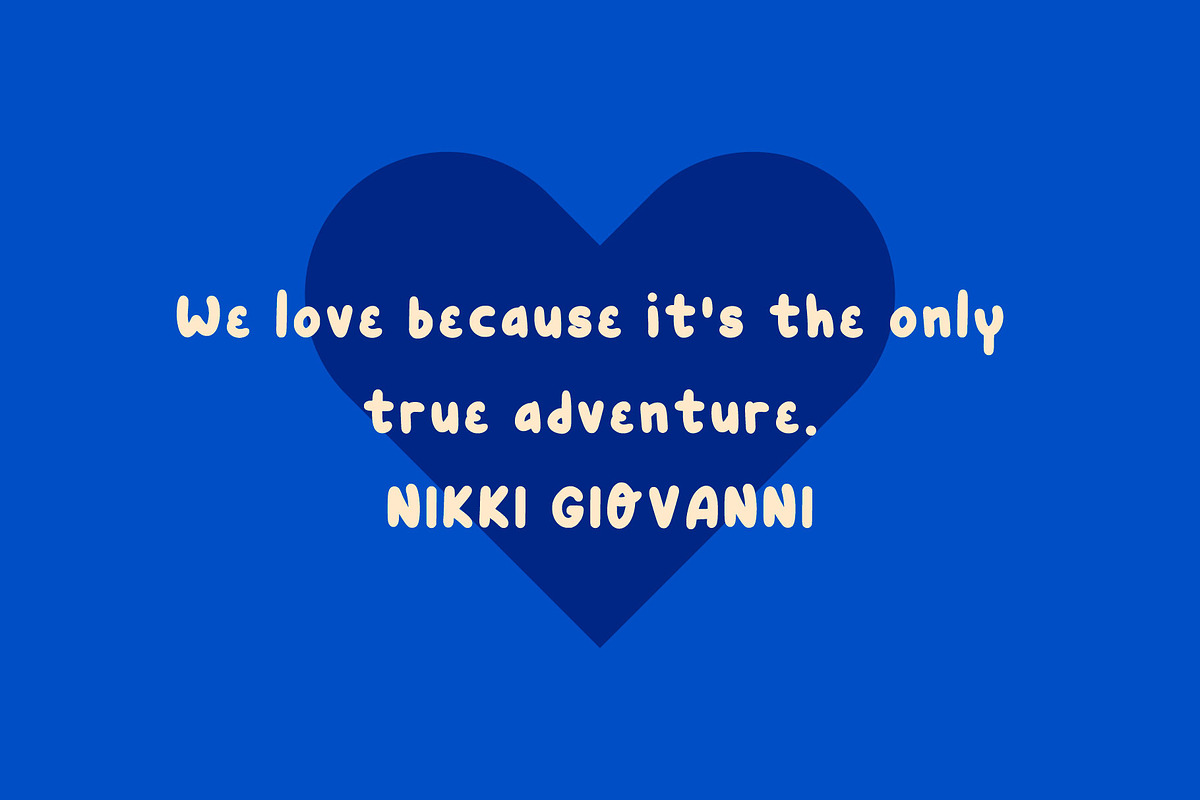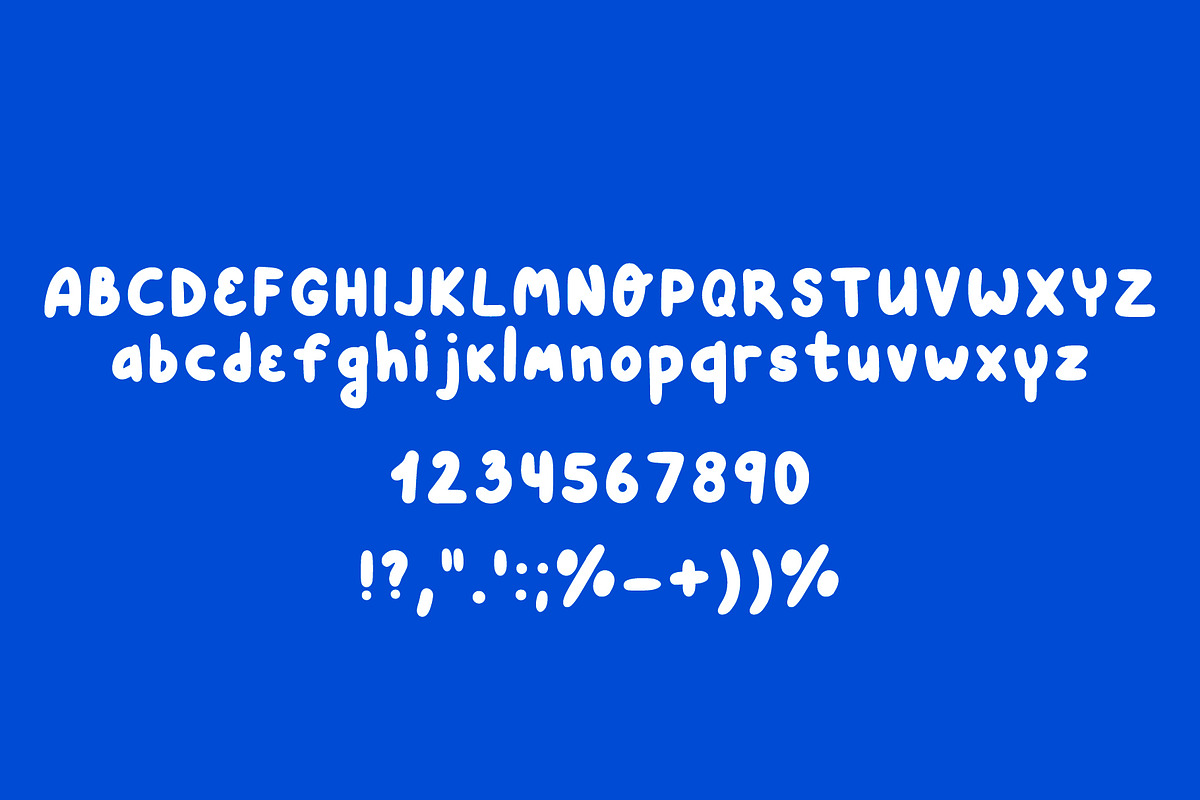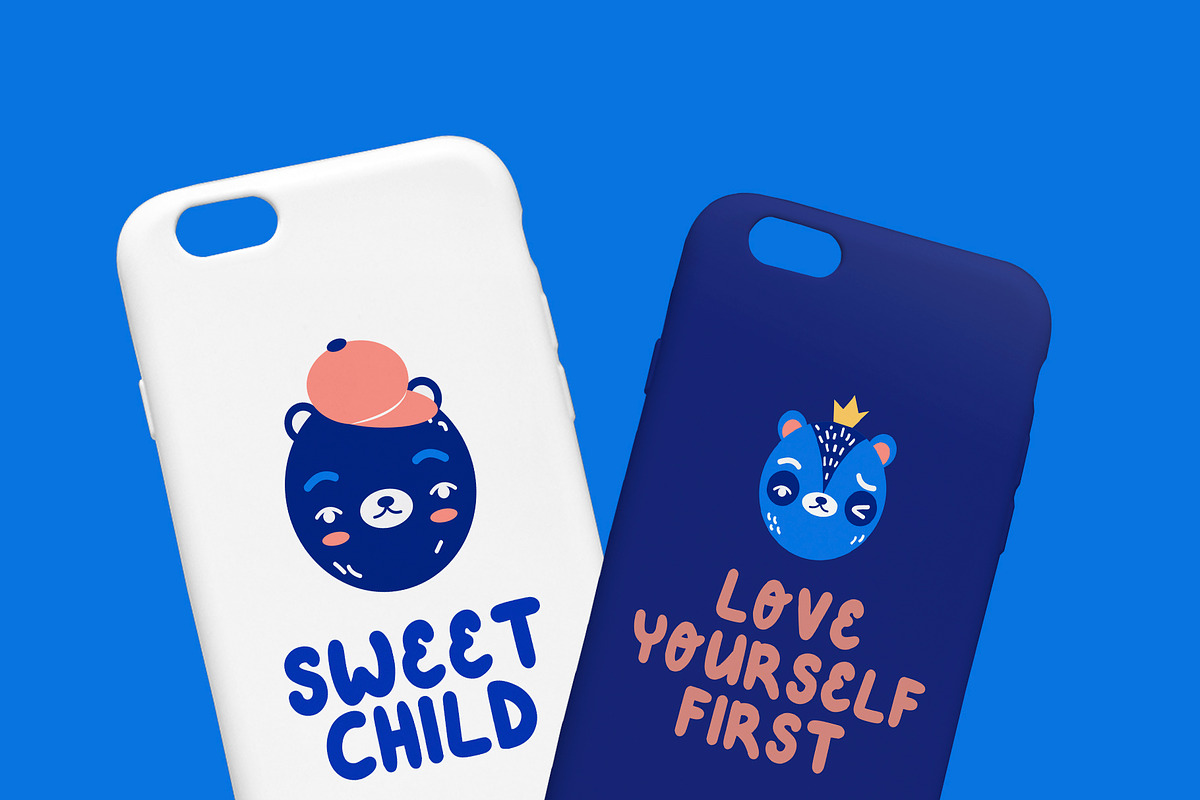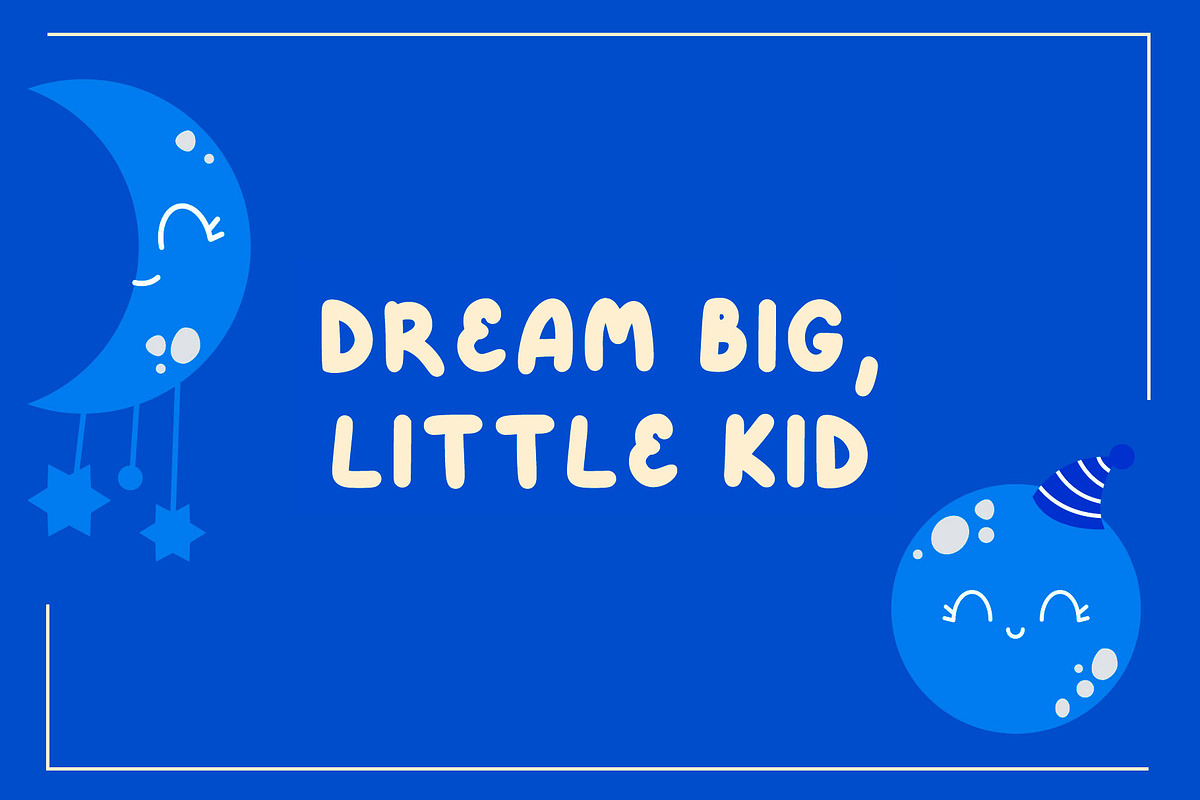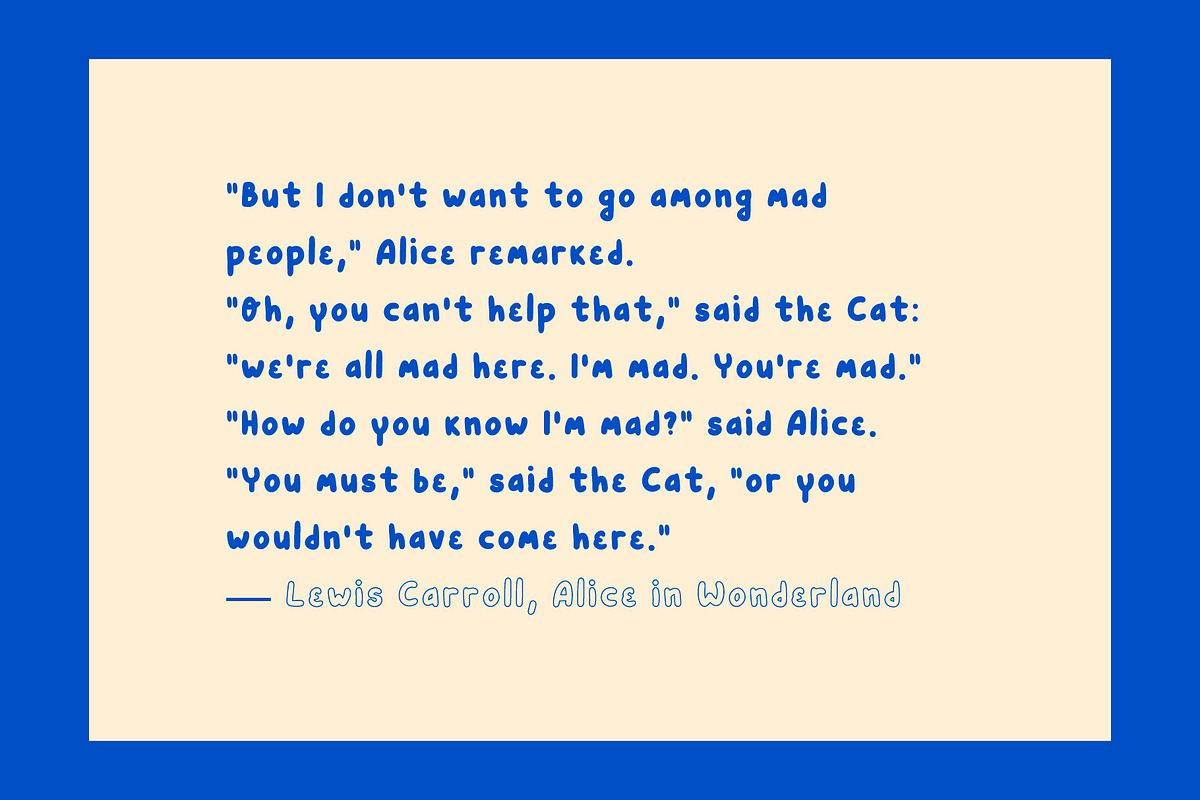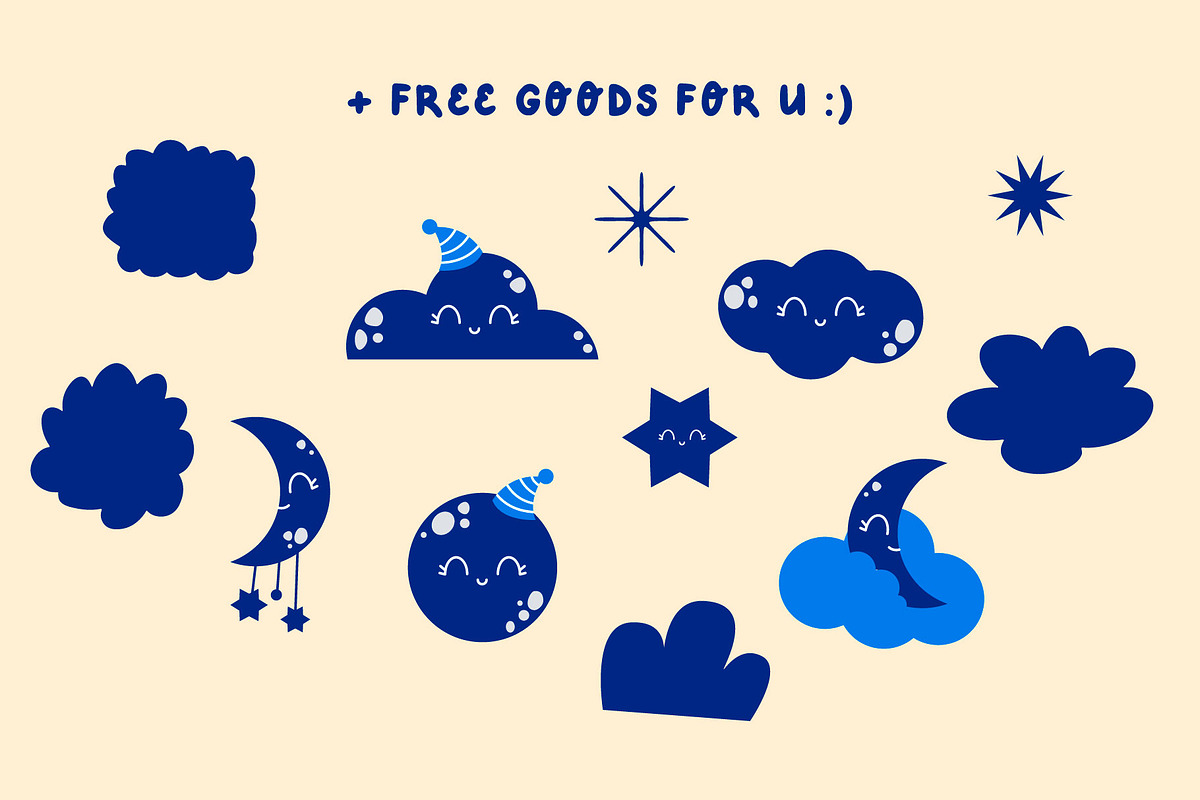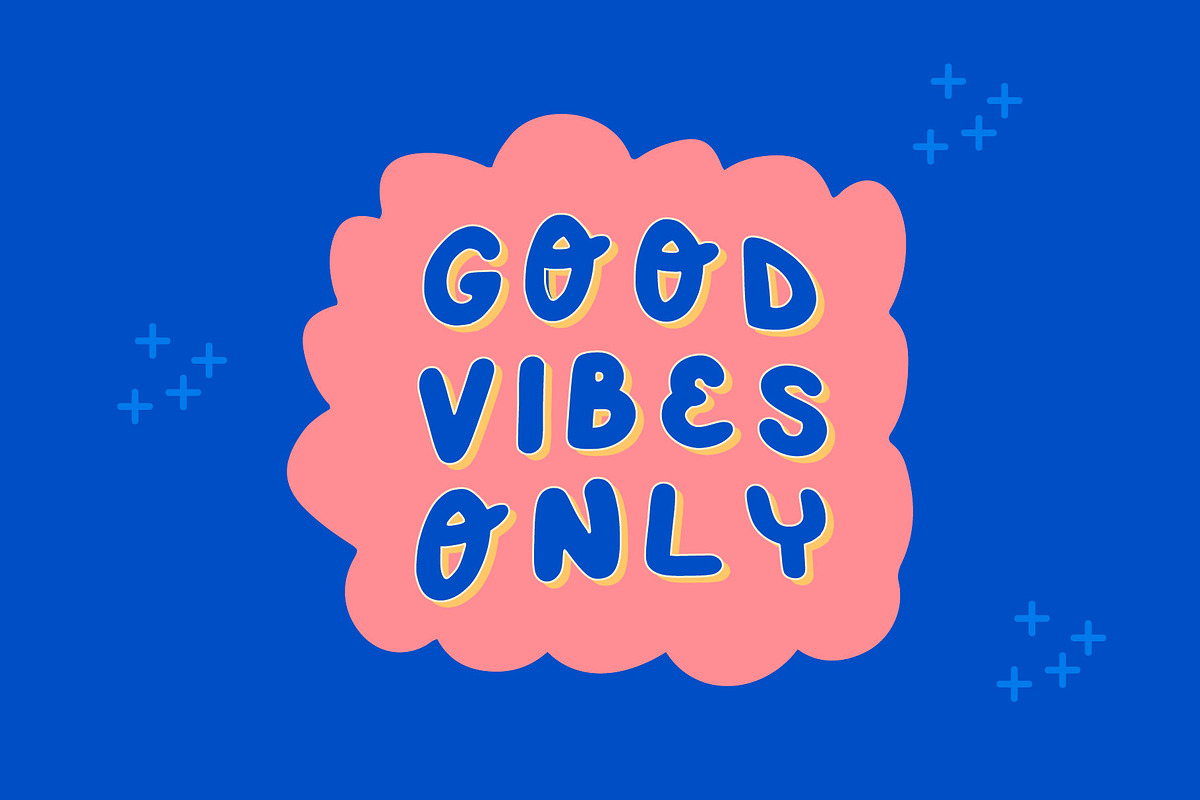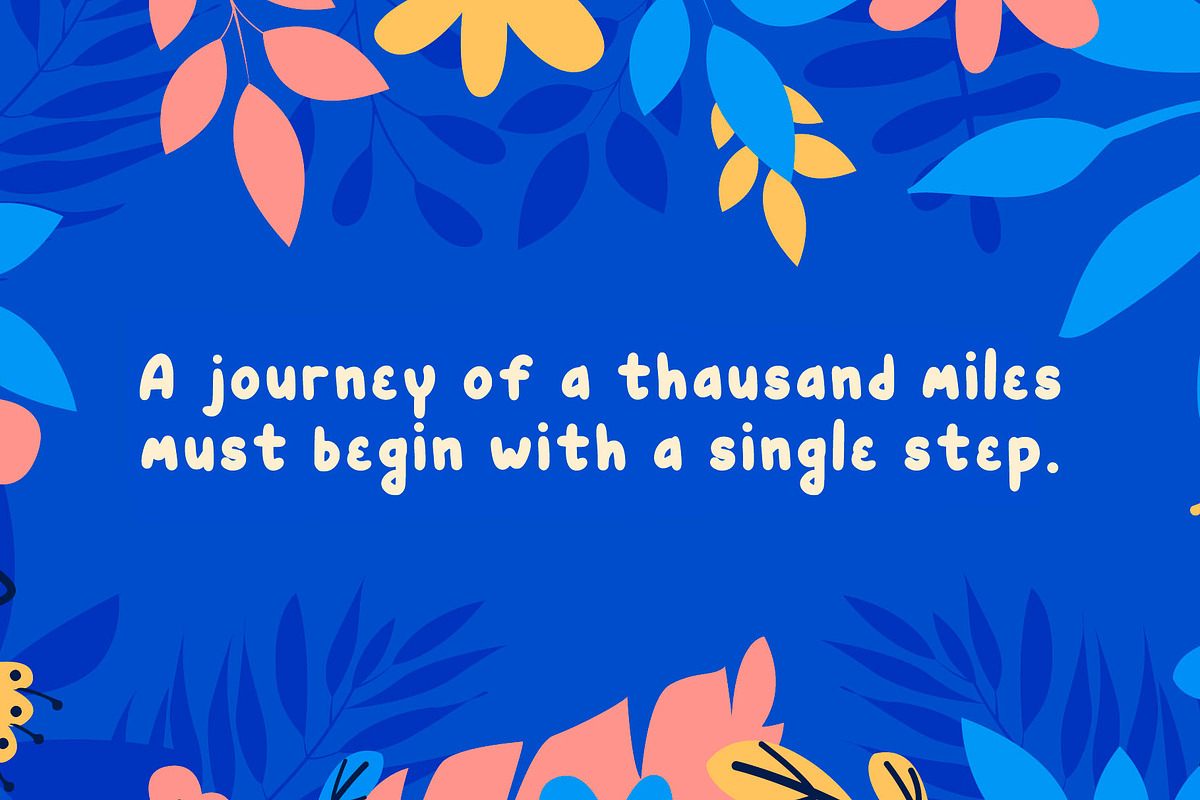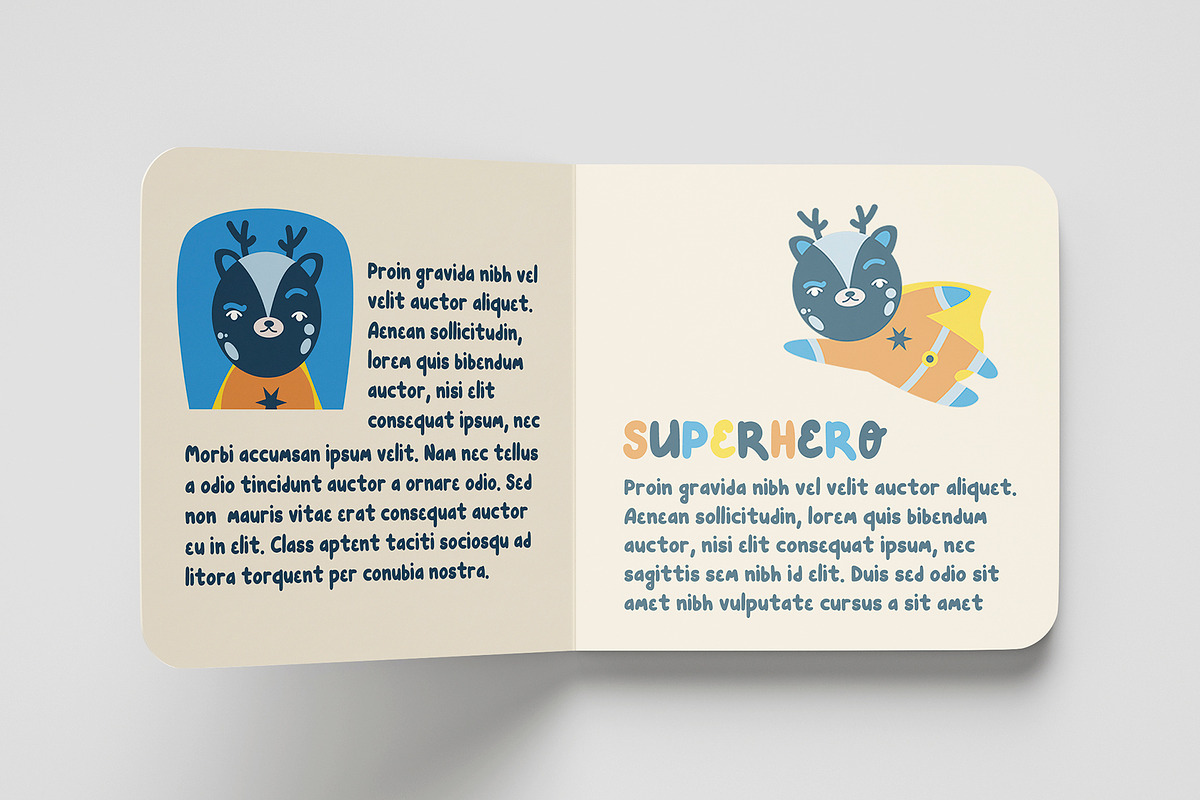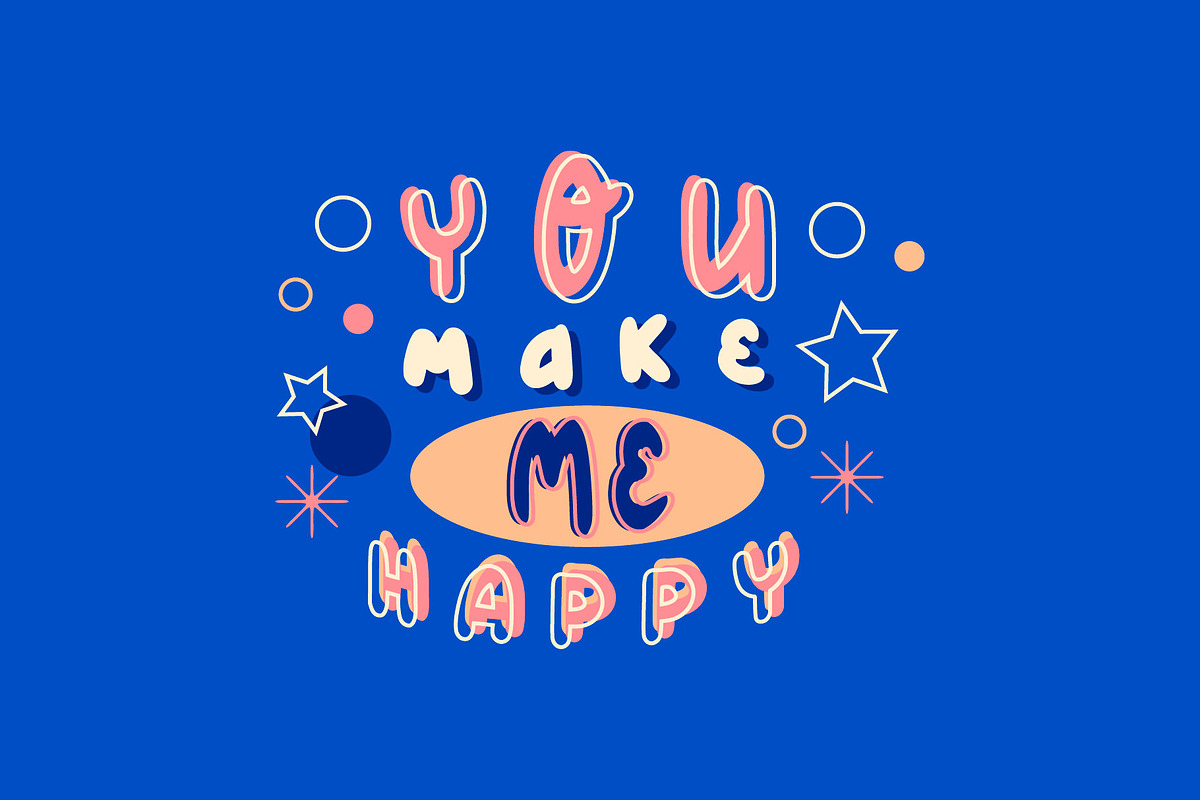
CUTEYA handwritten cute font
Kids font
You can use it for quotes, posters, social media ads, postcards, and much more! Add a hand-written touch to your projects and make them more fun! It works perfectly for headlines.
This font can be used to create fun, beautiful, and outstanding things!